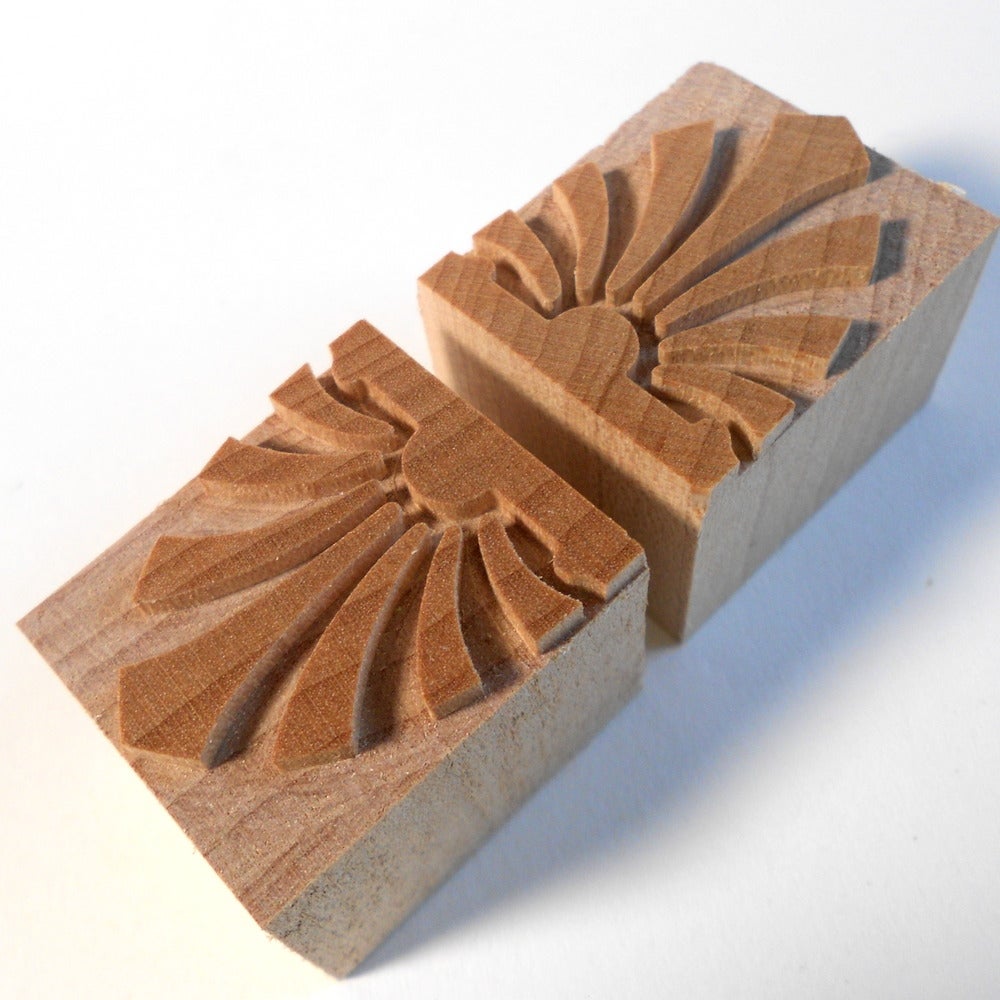
This Line Ornament is used at both ends of a line of type. It is based on William Page's Line Space Ornament #404. It is only sold as a pair and is priced as a pair